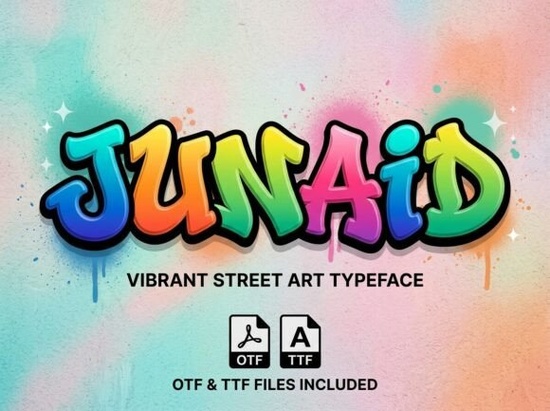
If you're working on a project that needs bold, urban energy like streetwear graphics, music posters, or youth-focused branding the Junaid Font might be exactly what you’re looking for. This graffiti-style display typeface blends thick, pillowy outlines with a vivid spray-paint rainbow gradient, giving your text the look of a freshly tagged city wall. It’s not just decorative; it’s expressive, dynamic, and full of attitude.
Designed for impact, Junaid stands out in any context where you want to channel street art culture without losing legibility. Whether you're printing T-shirts, designing skateboard decks, or creating digital assets for an urban event, this font brings a mural-like presence to headlines and logos.
What makes Junaid different from other graffiti fonts?
Many display fonts in the graffiti category lean heavily into chaotic letterforms or exaggerated drips. Junaid strikes a balance: it’s stylized but still readable, energetic but structured. The key features include:
- Thick, rounded outlines that mimic hand-sprayed stencils
- A built-in rainbow gradient effect that simulates real aerosol layering
- High contrast between strokes, making it pop even at small sizes
- Uppercase-only design optimized for short phrases and titles
Unlike more rigid retro options like those found in our block retro font collection, Junaid leans into organic imperfection think less 1980s arcade, more modern alleyway mural. If you’ve used fonts like Volta or Letter Crafts, you’ll notice Junaid trades geometric precision for raw, hand-done character.
Who should use this font?
Junaid works best when authenticity and edge matter more than formality. Ideal users include:
- Print-on-demand sellers creating urban-themed apparel or accessories
- Event promoters designing flyers for hip-hop shows, skate competitions, or street festivals
- Small brands building identity around youth culture, rebellion, or DIY aesthetics
- Digital crafters making SVG files for Cricut or Silhouette projects with a gritty vibe
It’s worth noting that Junaid isn’t meant for body text or minimalist designs. Save it for moments when you want your words to shout not whisper.
How does it compare to similar Creative Fabrica fonts?
If you enjoy the boldness of Junaid but want alternatives with different moods, consider exploring related styles. For example, the Back to Retro series offers nostalgic flair with cleaner lines great if your project leans vintage rather than street. Volta delivers futuristic curves, while Letter Crafts gives a handmade stencil feel with more uniform spacing.
But if your vision includes color bursts, uneven edges, and that unmistakable spray-can texture, Junaid remains one of the most distinctive choices in the display font category right now.
Tips for using Junaid effectively
To get the most out of this font without overwhelming your design:
- Use it sparingly: One or two words often have more impact than full sentences.
- Pair with neutral elements: Let Junaid dominate while keeping backgrounds and supporting text minimal (think solid colors or subtle textures).
- Avoid heavy effects: Since it already includes a gradient, skip additional shadows or glows unless you’re going for an intentionally maximalist look.
- Check legibility at scale: Test how it appears on mockups especially for apparel or signage where viewing distance matters.
Remember, the goal is to evoke street art’s spirit, not replicate chaos. Thoughtful placement turns Junaid from a novelty into a storytelling tool.
If your next project calls for unapologetic urban energy, Junaid Font delivers both style and substance. Before you download, ask yourself:
- Is my audience drawn to street culture or youth-driven aesthetics?
- Am I using this for headlines, logos, or short phrases not paragraphs?